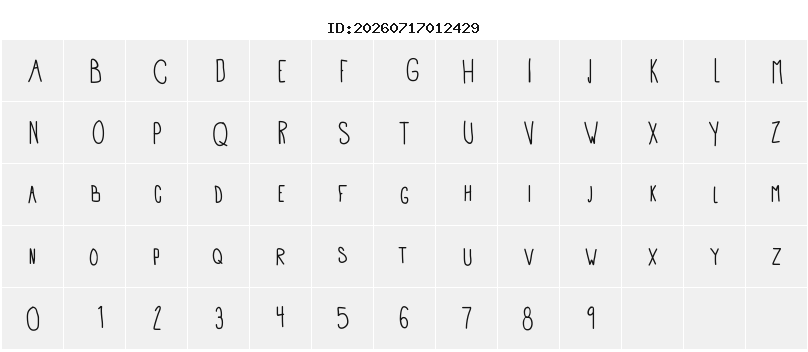
• Font Name: APD
• Font ID: AlexPatin:APD
• Full Font Name: APD
• PostScript Name: APD
About APD.ttf
APD.ttf is a modern, elegant sans-serif font designed for ultimate readability and visual harmony. Perfect for branding, headlines, web design, and print materials.